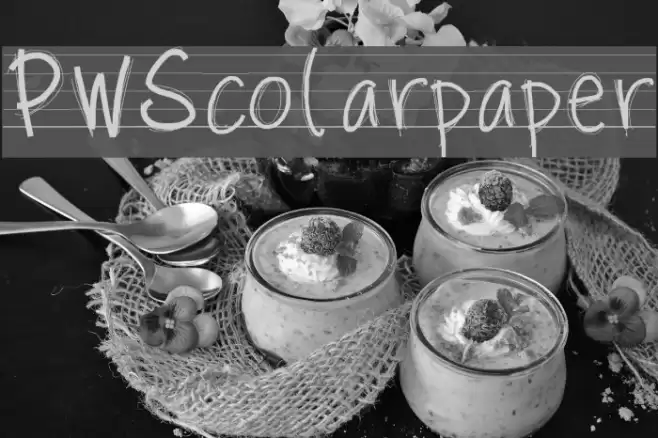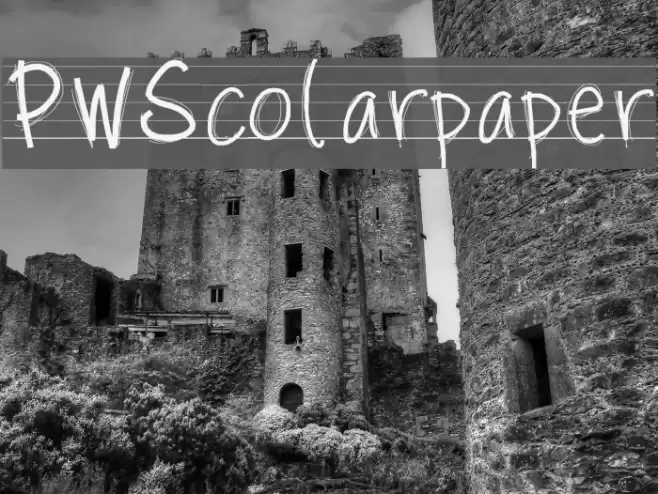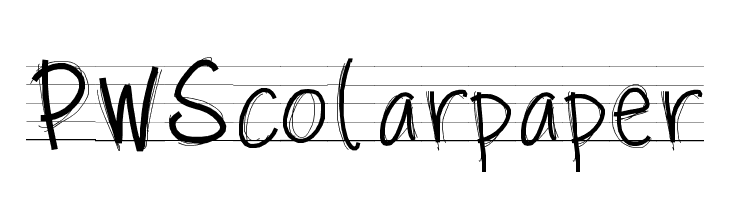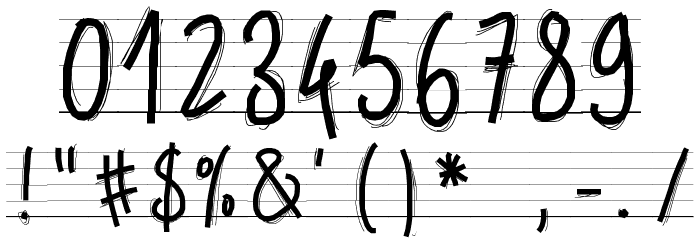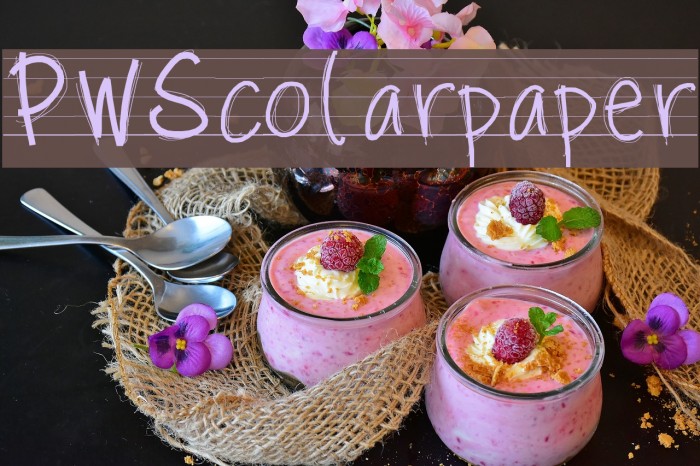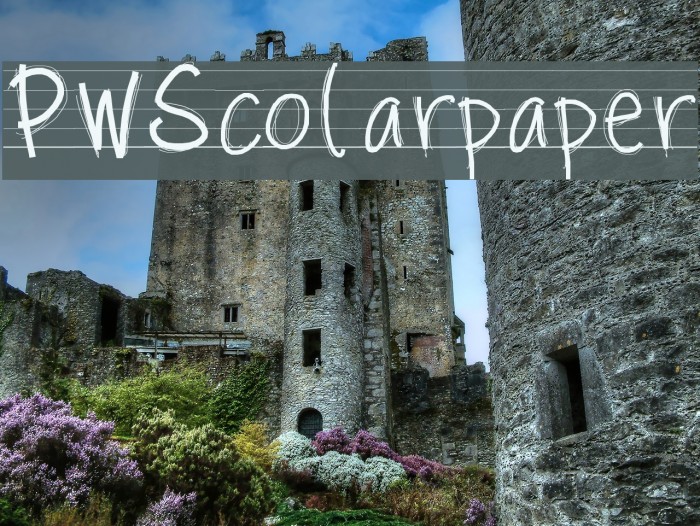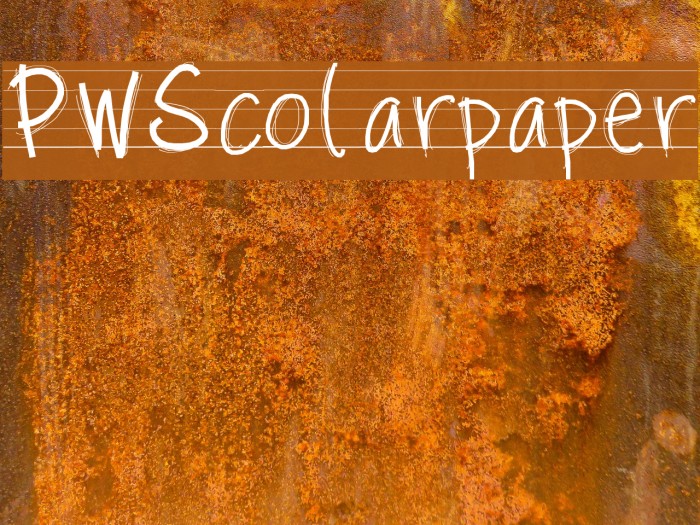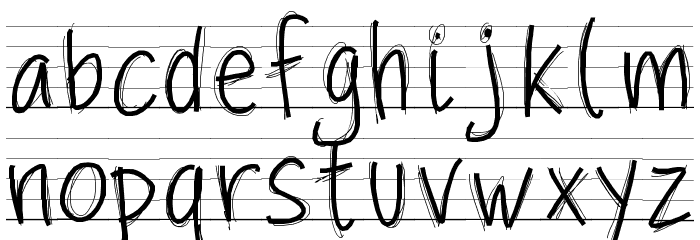
PWScolarpaper Font
PWScolarpaper Description
This font features a playful and casual handwritten style, characterized by its uneven strokes and slightly tilted letters. The uppercase letters are bold and prominent, while the lowercase letters maintain a consistent flow with a touch of whimsy. Numbers are clear and legible, matching the overall informal aesthetic. The special characters retain the same playful quality, making them suitable for creative and informal contexts. The font's unique charm lies in its hand-drawn appearance, which adds a personal touch to any project.
A playful, casual handwritten font with uneven strokes and a whimsical style from Uncategorized fonts.
- Proposed Projects: Ideal for children's books, greeting cards, informal invitations, and creative branding projects.
- Overall Style: Casual, Playful
- Use Case: Headlines, Informal text, Creative projects